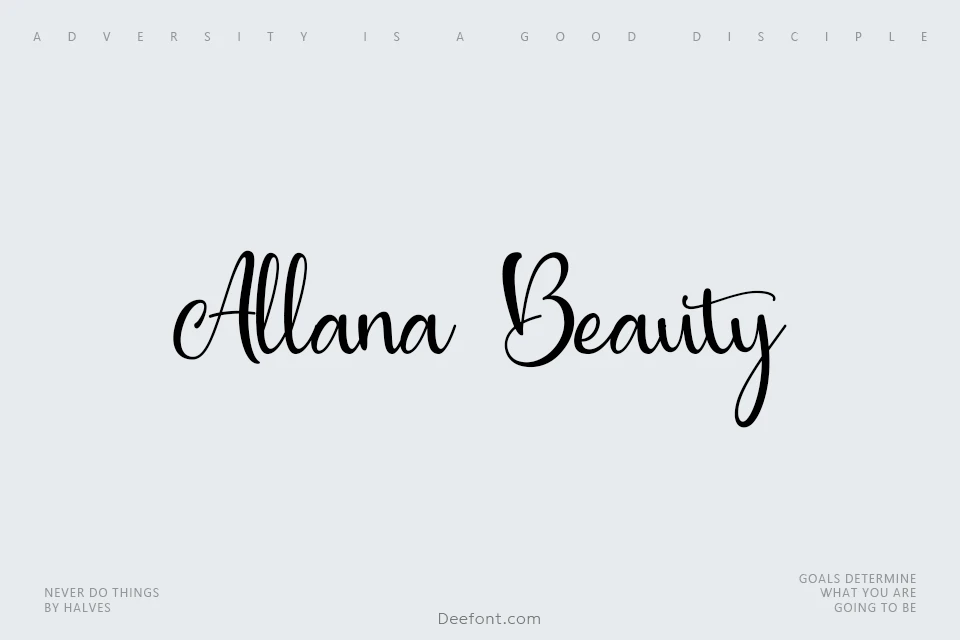
Allana Beauty Font
Allana Beauty Font is a romantic, modern calligraphy script font designed to bring elegance and charm to your creative projects. Featuring smooth swashes, artistic discipline, and effortless lines, this font is ideal for logos, branding, quotes, and any design that requires a touch of sophistication and beauty.